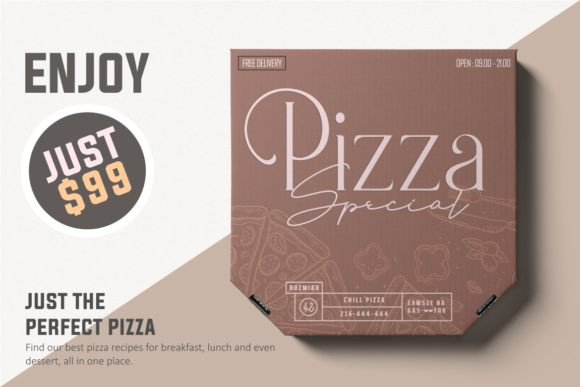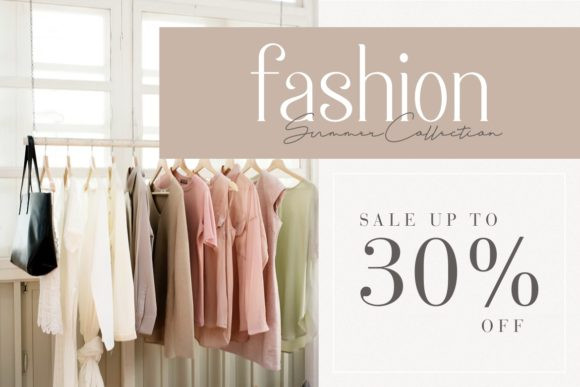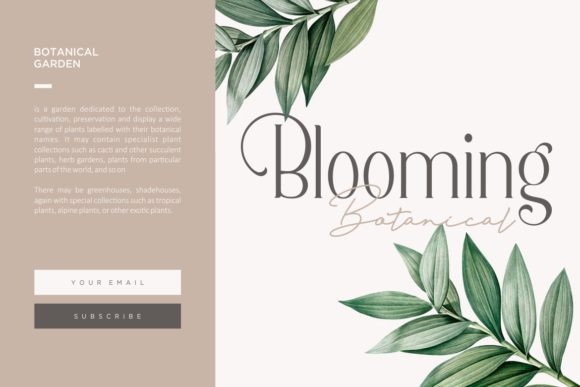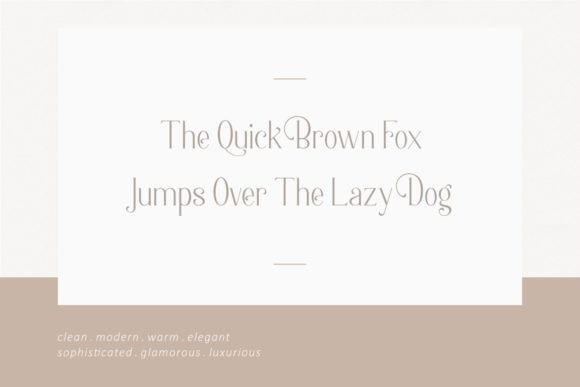
Berlin Serif Font
Thank you for looking Berlin Font. A new duo font serif and script type.It’s a sweet font duo with a contemporary touch. This elegant font pair will easily add a unique touch on any creative project!
Berlin is a strikingly simple serif font with a modern feel. It will add a luxurious feel to any design idea! It’s perfect for branding projects, logo, wedding designs, social media posts, advertisements, product packaging, product designs, label, photography, watermark, invitation, stationery…